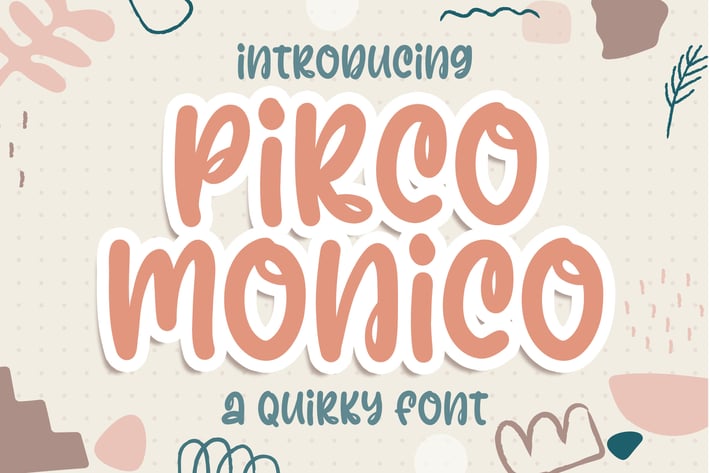
Pirco Monico Quirky and Playful Business Font
Introducing of our new product the name is Pirco Monico Quirky Font, Pirco Monico inspired by Bouncy Calligraphy style with a fun theme very good for Logotype, kids poster, flyer, childrenbook, cartoon, comic etc